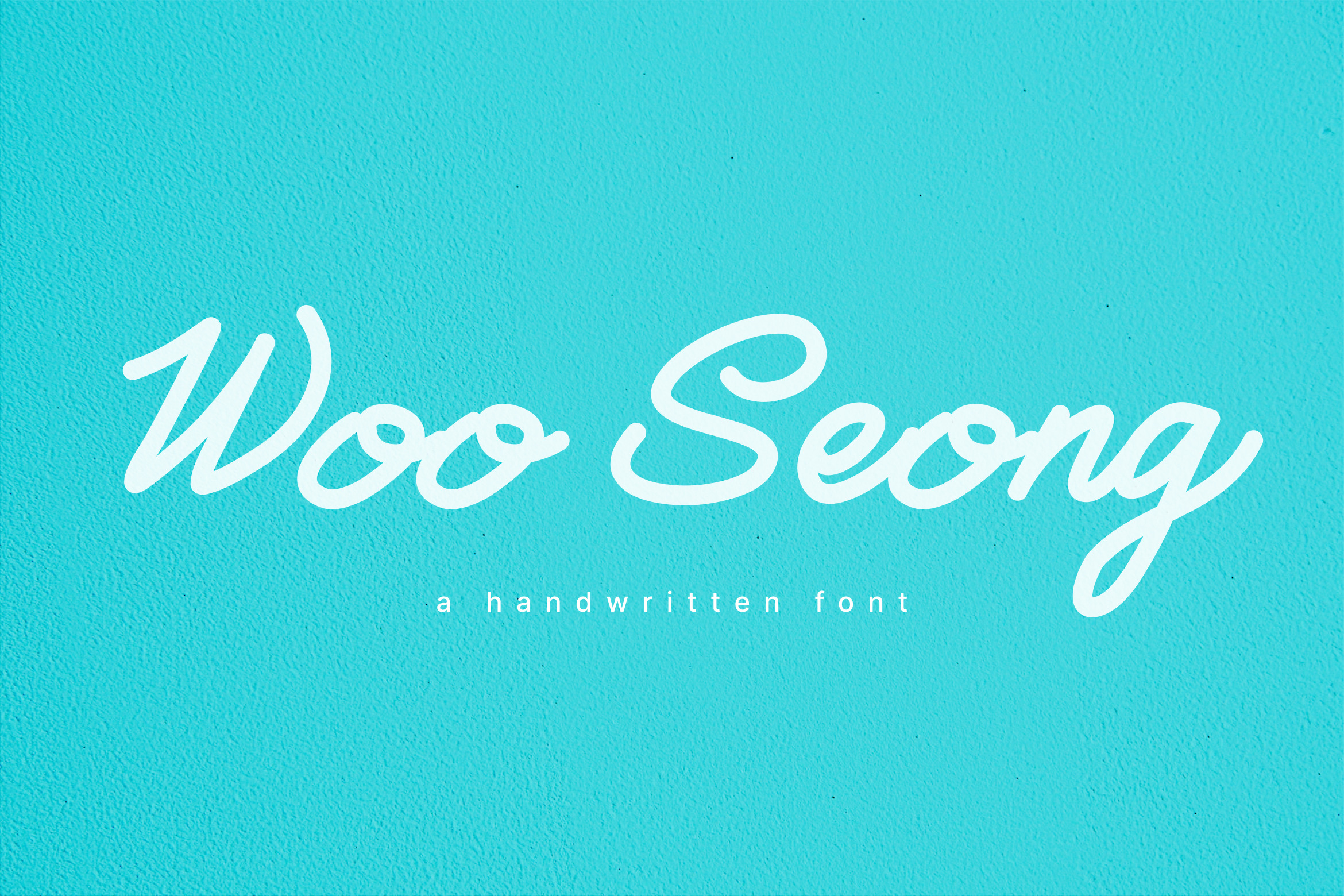
WooSeong - a Script Handwritten Font
Woo Seong is a script handwritten font which is suitable for any products and promotional kit for your business, such as fashion, branding, merchandise, food brands, posters, flyers, social media kits, business cards, stickers, labels, quote posts, food packagings, and any other design needs.
This font has character images depicting fun, kids, ice cream, sweet, candy, colourful, Korean style, K-Pop, Japanese style, young, teen, foodies, stylish, doodle, playful, energic, fresh, vintage, etc.